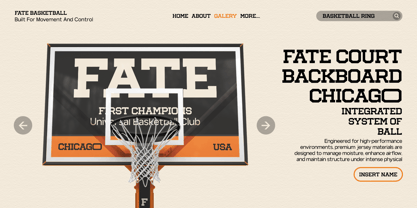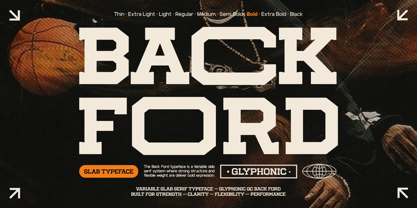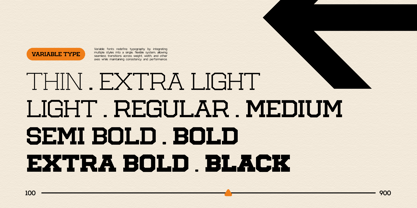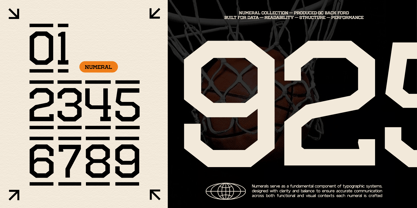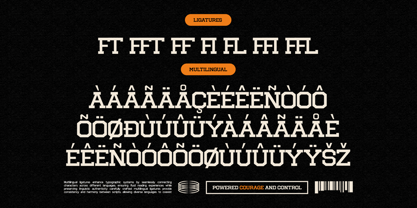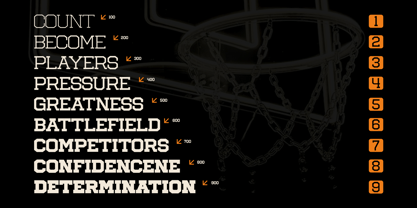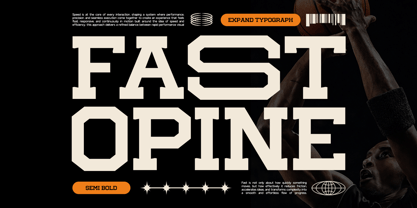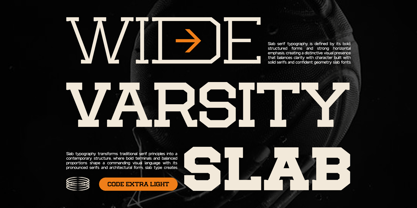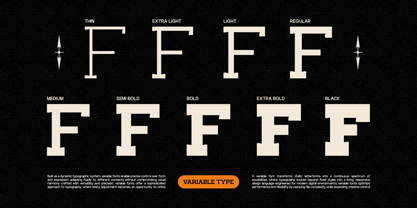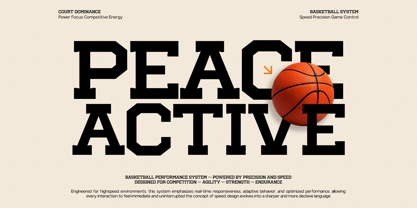
The GC Back Ford Font Family was designed by Muhammad Hafiizh Solana and published by Onyx Studio. GC Back Ford contains 9 styles and family package options. More about this family
GC Back Ford – Urban Slab Typeface is a bold slab serif typeface built with strong structure, sharp geometry, and urban-inspired character. Designed to deliver power, clarity, and visual impact, Back Ford creates a confident typographic voice suited for modern streetwear, sports branding, posters, and bold editorial compositions.
With its thick slab construction, angular cuts, and solid proportions—as seen in its athletic-style letterforms—**GC Back Ford** brings a striking presence that feels both vintage-inspired and contemporary. The structured forms create strong readability while maintaining an expressive and energetic appearance.
As a variable typeface with multiple weight options, GC Back Ford offers flexibility for designers to build dynamic hierarchy across headlines, branding systems, and large-format visuals. From light condensed structure to heavy black impact, the font maintains consistency and bold personality throughout every weight.
Crafted for both digital and print media, GC Back Ford blends classic slab serif strength with modern urban aesthetics, making it ideal for sports graphics, apparel branding, packaging, music visuals, and impactful typography projects.
Features:
- Variable Font (Thin – Black)
- Urban Slab Serif Construction
- Uppercase & Lowercase
- Numbers & Punctuation
- Strong Athletic Letterforms
- Sharp Geometric Structure
- Multilingual Support (170+ Languages)
GC Back Ford — bold slab energy built for strength, impact, and urban expression.